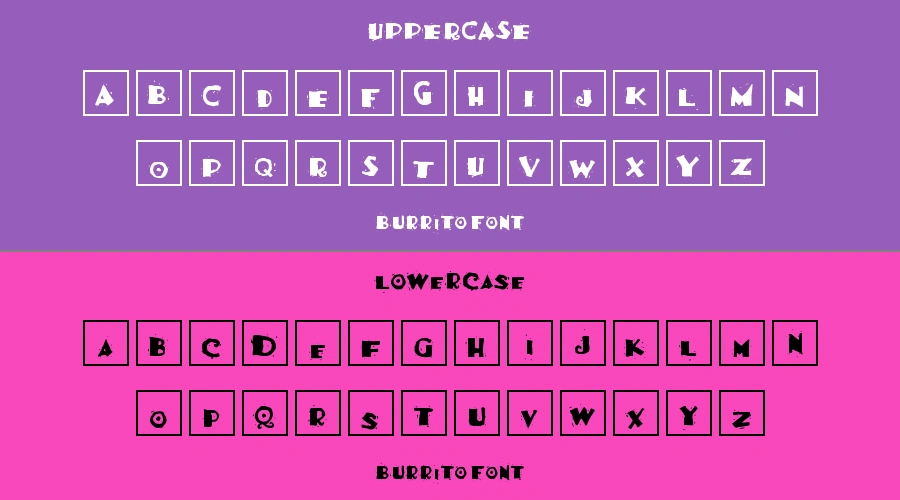
About Burrito Font
Burrito Font stands out for its distinctive combination of confident strokes and sophistication. Ideal for formal announcements, it provides the accuracy and design innovation that professional projects demand. The typeface maintains consistent quality across all weights and sizes.
Key features include refined pen-inspired details and practical stylistic alternates, enhancing typographic expression. In hero imagery applications, Burrito Font demonstrates exceptional versatility. The cap height ratio and institutional trust contribute to its distinctive character and professional appeal.